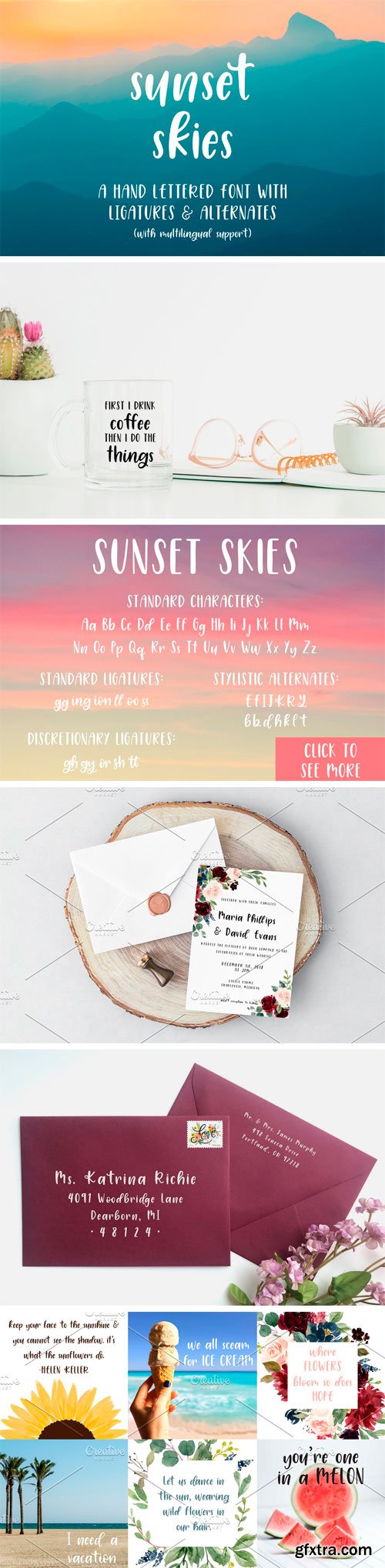
Sunset Skies is a fresh, hand lettered font! Sunset Skies comes in both .otf and .ttf file formats. The .otf file is recommended to be used to take advantage of all the fun alternate characters.